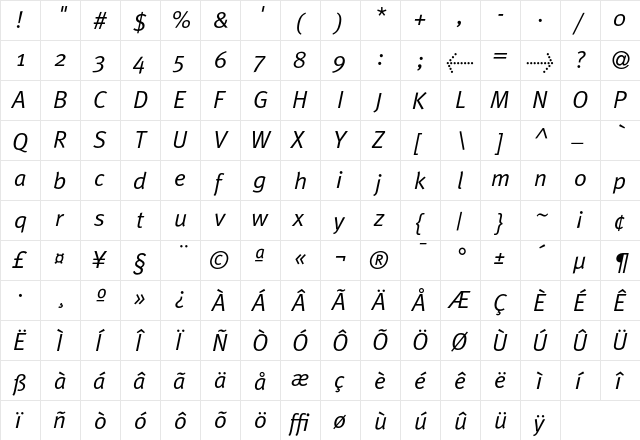
MetaPlusNormal- Italic
Design Context for MetaPlusNormal- Typeface
MetaPlusNormal- is a composed and adaptable typeface that performs quietly and consistently across a wide range of design contexts. The slanted form adds forward momentum and visual energy.
Pro Tip: Try MetaPlusNormal- for annotation and caption copy alongside an upright companion — the contrast in angle creates a dynamic but ordered typographic system.